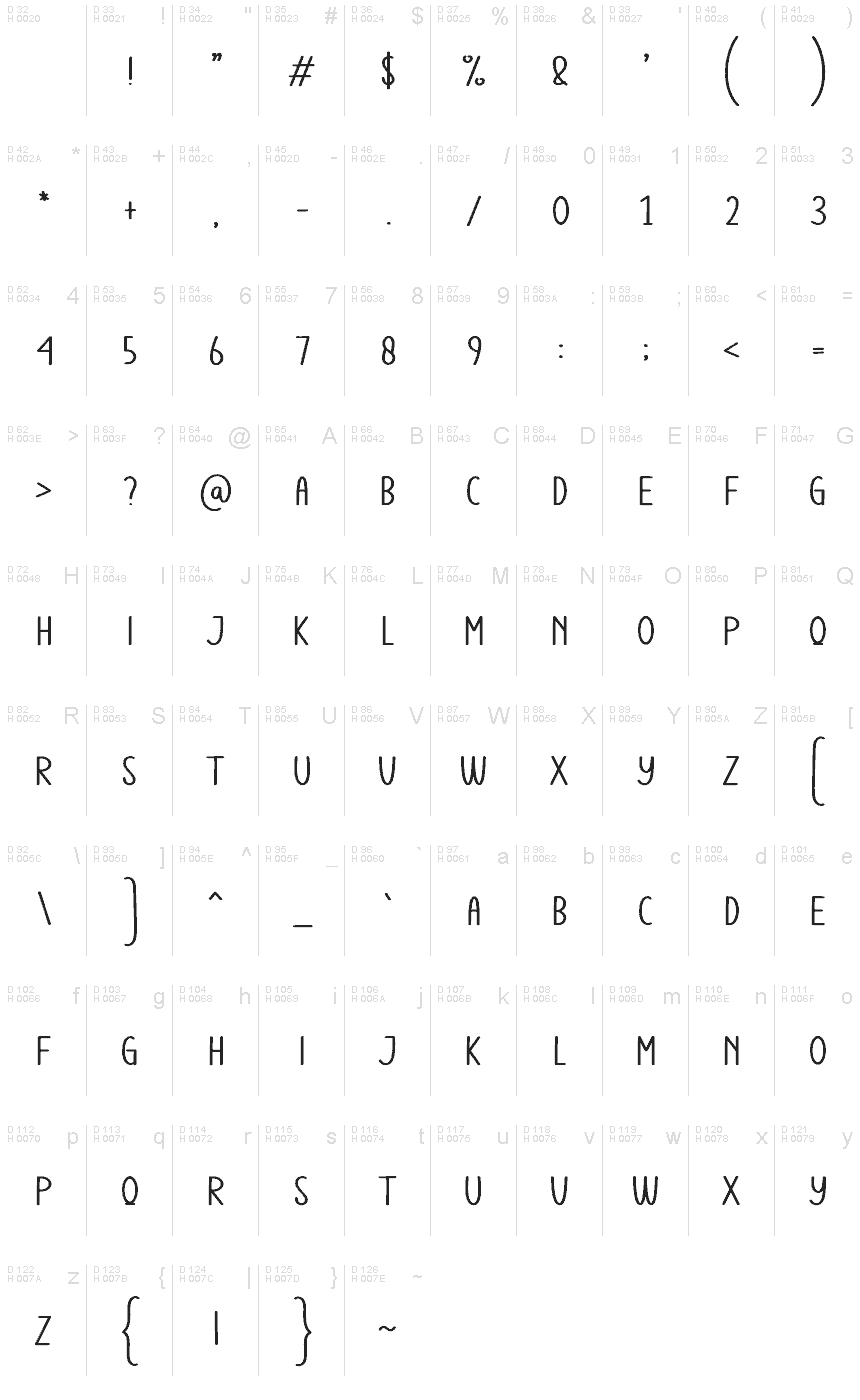
Creative Online
Creative Online font is a free handwritten font, built with modern minimalistic lines and structured appearances. Created by Andi Moz, this condensed typeface has a slight geometric feel that makes every written word sharp and pleasant to the eye. Its youth and unique vibes guarantee beautiful contemporary applications.
Consider it for e-books, websites, mobile apps, packaging designs, film posters, social media branding campaigns or television advertising. интерфейסיםanta